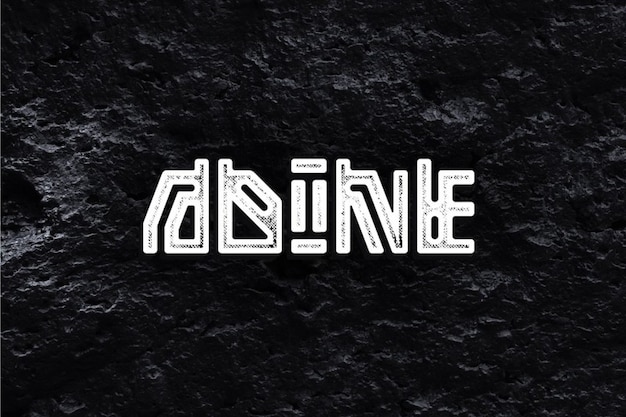
Adine Font
Unleash your creativity with Adine – a font that blends futuristic elements with a modern, decorative twist. Inspired by ethnic and tribal art, Adine adds a unique flair to your projects. Whether you're designing for the future or embracing cultural aesthetics, Adine is your go-to choice for a touch of creativity and modernity. Bring your vision to life with this versatile and eye-catching font!